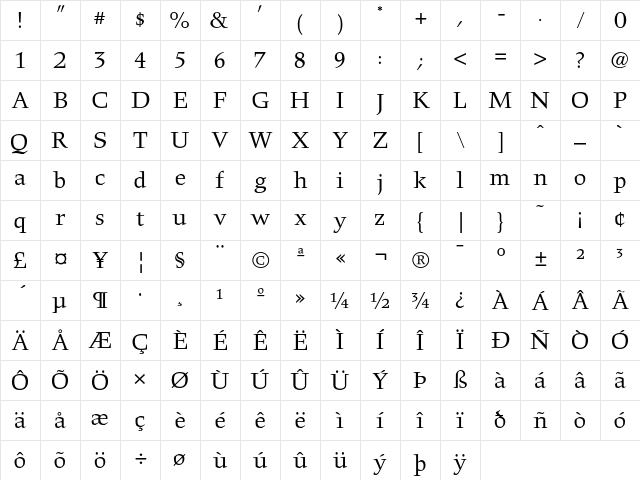
Hawkhurst LT Std Regular Free Font
Hawkhurst LT Std Regular Regular
Foundry: Linotype Library GmbH
Designer: Richard Yeend
Design Context for Hawkhurst LT Std Regular
Hawkhurst LT Std Regular is a composed and adaptable typeface that performs quietly and consistently across a wide range of design contexts. Its slender proportions lend an understated elegance to any composition.